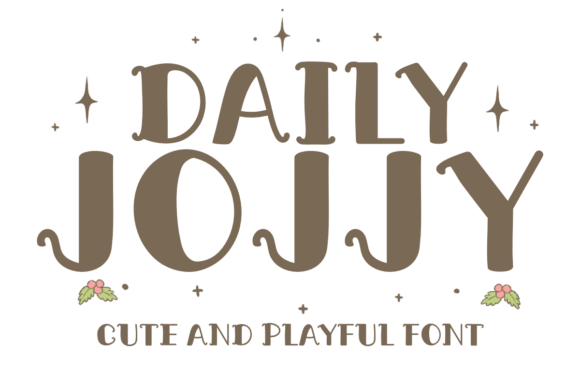
Introducing Daily Jolly Font: The Ultimate Festive Addition to Your Christmas Projects
The holiday season is upon us, and with it comes the need for festive and fun designs that capture the spirit of Christmas. If you’re a designer, crafty DIY enthusiast, or simply someone who loves spreading holiday cheer, you’re in luck. Daily Jolly font is here to bring a playful touch to all your Christmas projects, and we’re excited to dive into what makes this font so special.
The Joy of Daily Jolly Font
Daily Jolly is more than just a font – it’s an experience. This bold, joyful font is designed to bring a smile to your face and a dash of festive fun to your designs. Its chunky, festive letters are perfect for holiday cards, gift tags, seasonal posters, and cozy winter-themed crafts. Whether you’re creating something for personal use or professional, Daily Jolly is sure to make your designs pop with personality.
What Makes Daily Jolly So Special?
So, what sets Daily Jolly apart from other festive fonts out there? Here are just a few reasons why this font is a cut above the rest:
- Hand-drawn feel: Daily Jolly has a lively, hand-drawn feel that makes every letter pop with personality. This font is not just a collection of letters – it’s a work of art.
- Chunky and bold: The chunky, bold letters of Daily Jolly make it perfect for creating eye-catching designs that demand attention.
- Festive and fun: Daily Jolly is the epitome of festive fun. Its playful design is sure to put a smile on your face and get you in the holiday spirit.
Using Daily Jolly for Your Christmas Projects
Daily Jolly is incredibly versatile, making it perfect for a wide range of Christmas projects. Here are just a few ideas to get you started:
Holiday Cards
Create personalized holiday cards that will make your loved ones feel special. With Daily Jolly, you can add a playful touch to your card designs and make them truly unforgettable.
Imagine a card with a bold, Daily Jolly headline that reads “Merry Christmas!” or “Happy Holidays!” The chunky letters will add a fun and festive touch to your design, making it perfect for the holiday season.
Gift Tags
Daily Jolly is also perfect for creating gift tags that will add a personal touch to your gifts. Simply type out the recipient’s name in Daily Jolly, and you’ll have a beautiful, one-of-a-kind gift tag that’s sure to impress.
Whether you’re giving gifts to friends, family, or coworkers, Daily Jolly gift tags are a great way to show you care.
Seasonal Posters
If you’re looking to create eye-catching seasonal posters, Daily Jolly is the perfect font for the job. Its bold, chunky letters will grab attention and add a festive touch to your designs.
Imagine a poster with a Daily Jolly headline that reads “Happy Holidays from Our Family to Yours!” The playful design will add a fun and festive touch to your poster, making it perfect for displaying at your holiday party or in your store window.
Cozy Winter-Themed Crafts
Daily Jolly is not just limited to digital designs. Its playful font is also perfect for cozy winter-themed crafts, such as handmade cards, scrapbooking, and more.
Imagine creating a handmade card with Daily Jolly letters that read “Warmest Wishes for a Cozy Christmas.” The chunky, hand-drawn letters will add a fun and festive touch to your craft, making it a one-of-a-kind keepsake.
Why Choose Daily Jolly Font?
With so many festive fonts out there, why choose Daily Jolly? Here are just a few reasons why this font stands out from the rest:
Easy to Read
Despite its bold and chunky design, Daily Jolly is incredibly easy to read. This makes it perfect for designs where you need to convey a message quickly and clearly.
Whether you’re creating a holiday card, gift tag, or poster, Daily Jolly ensures that your message will be seen and understood.
Highly Versatile
Daily Jolly is an incredibly versatile font that can be used for a wide range of designs. Whether you’re creating something for personal use or professional, this font is sure to adapt to your needs.
From holiday cards to gift tags, seasonal posters to cozy winter-themed crafts, Daily Jolly is the perfect font for any festive design project.
Unique and Playful Design
Daily Jolly has a unique and playful design that’s sure to make your designs stand out. Its hand-drawn feel and chunky letters give it a personality that’s hard to find in other fonts.
With Daily Jolly, you can add a dash of festive fun to your designs and create something truly unforgettable.
In conclusion, Daily Jolly font is the ultimate festive addition to your Christmas projects. Its bold, joyful design and chunky, hand-drawn letters make it perfect for holiday cards, gift tags, seasonal posters, and cozy winter-themed crafts.
Whether you’re a designer, crafty DIY enthusiast, or simply someone who loves spreading holiday cheer, Daily Jolly is sure to bring a playful touch to your designs. So why wait? Download Daily Jolly today and add a sprinkle of magic to each of your festive designs!
- Easy to read: Despite its bold design, Daily Jolly is incredibly easy to read.
Get Ready to Spread Holiday Cheer with Daily Jolly!
Whether you’re creating designs for personal use or professional, Daily Jolly is the perfect font for the job. Its unique and playful design is sure to make your designs stand out and leave a lasting impression.